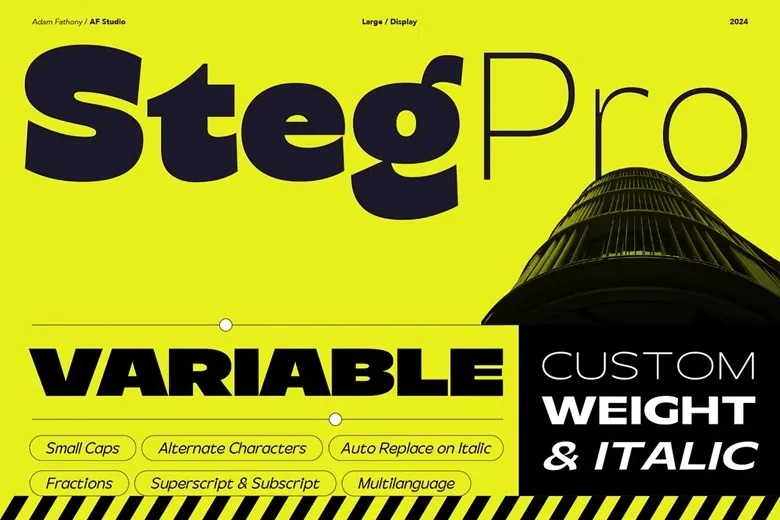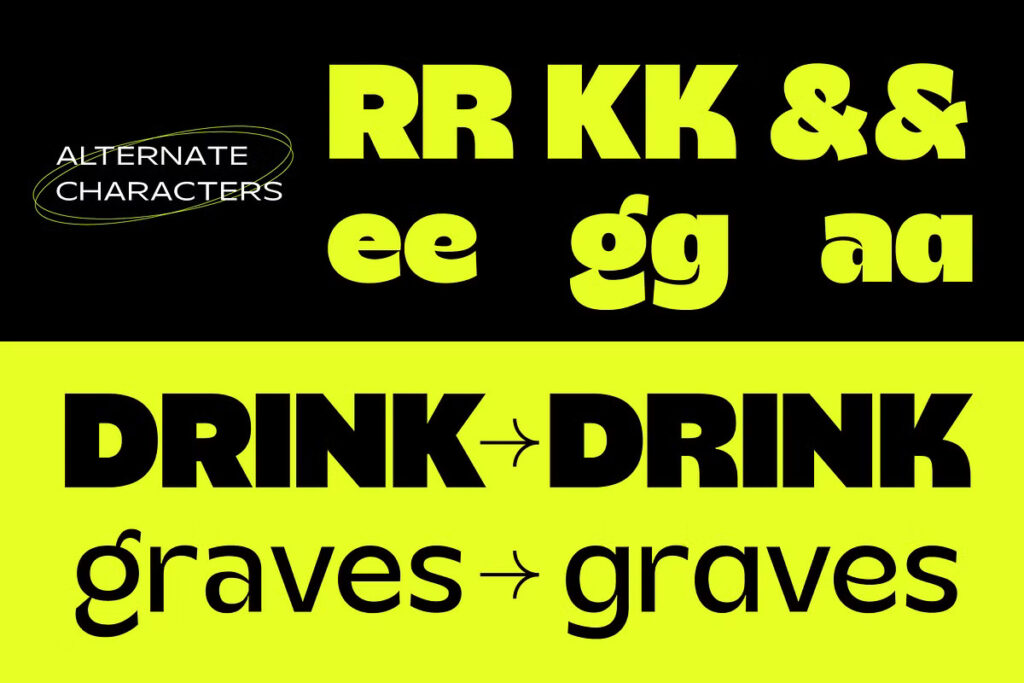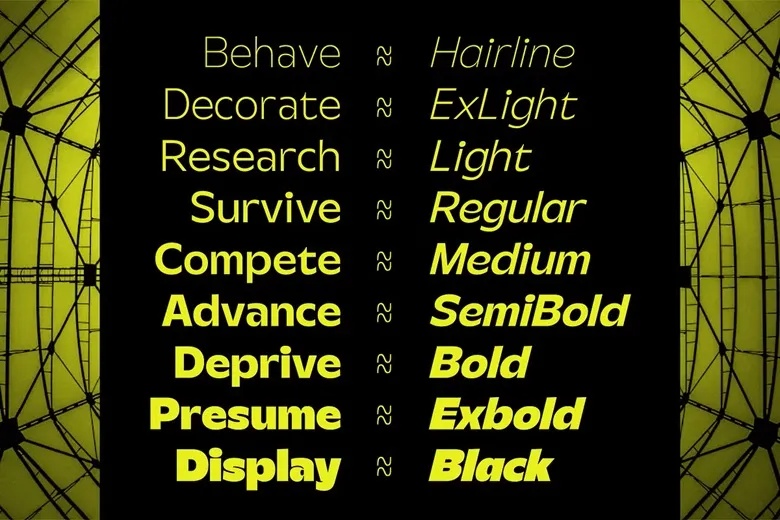
Steg Pro is an ultra-bold and uncomplicated sans serif typeface, designed to make an impact in headers, titles, and large text sizes. With its sleek, formalistic approach, it exudes a striking and contemporary look. Featuring clean lines and straight angles, Steg Pro is ideal for modern design concepts. One weight is particularly heavy, delivering a bold and impressive effect, while the other offers a simpler design, making it versatile for various contexts.
The Steg Pro family includes Variable Fonts with 9 weights and corresponding italic versions, offering flexibility for different design needs. Additionally, it boasts useful features such as small caps for more stylistic options, automatic letter replacement for true italics, and support for fractions, superscripts, and subscripts, ensuring perfect typesetting. The font also includes a more creative ampersand, adding a distinct touch to designs.
Steg Pro Sans Serif Font